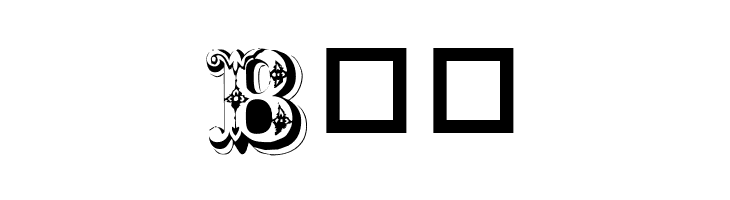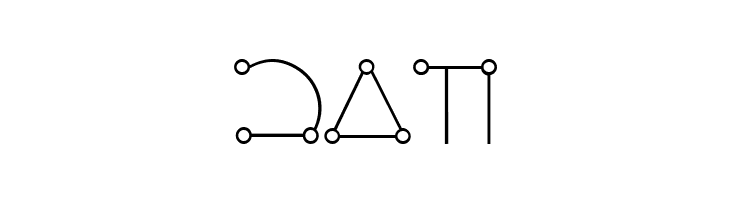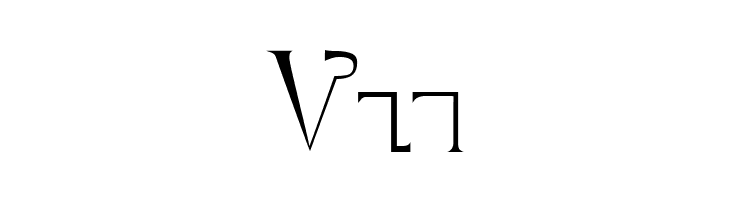
( onep 99 )
A playful and whimsical handwritten font with flowing, cursive-like strokes.
( Alternika )
An ornate and decorative font with intricate detailing and bold characters.
( Anke-Art - www.anke-art.de/ )
A bold, modern font with a geometric, industrial style.
( Anke-Art - www.anke-art.de/ )
A bold, geometric font with a modern industrial feel and rounded corners.
( Brian McFeely )
A bold, modern geometric font with sharp angles and clean lines.
( Digital Type Foundry - www.digitaltypefoundry.com/ )
A decorative font with geometric shapes and lines, offering a modern and abstract style.
( Digital Type Foundry - www.digitaltypefoundry.com/ )
A mystical and decorative font with intricate, esoteric designs.
( Digital Type Foundry - www.digitaltypefoundry.com/ )
A traditional blackletter font with ornate, angular letterforms.
( Digital Type Foundry - www.digitaltypefoundry.com/ )
A bold, angular font inspired by ancient runic alphabets, perfect for mystical or historical themes.
( Lauren Harrison - gumroad.com/lrnrh )
A whimsical and eclectic display font with varied, artistic letterforms.